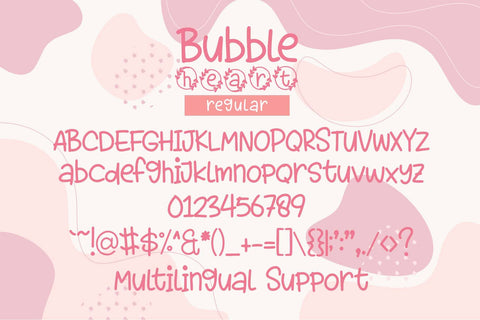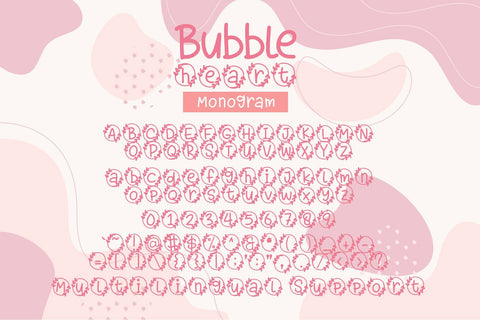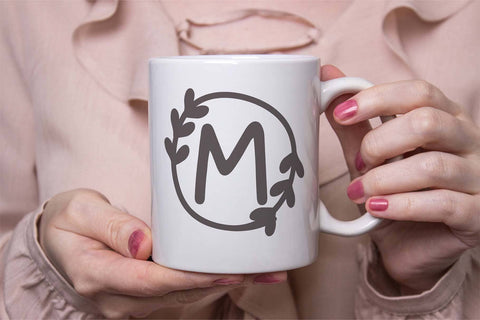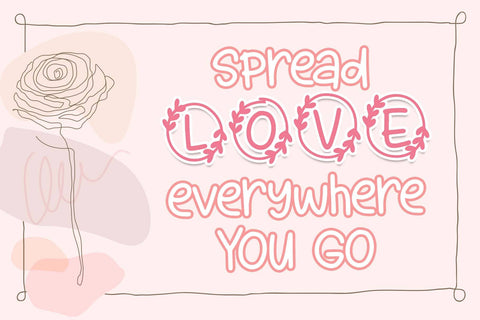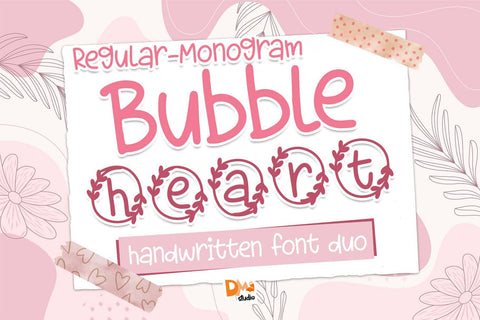
Bubble Heart Font
Elevate your designs with the Bubble Heart Font Duo Monogram. This versatile font duo allows you to effortlessly create beautiful monograms with a charming bubble heart motif. Perfect for personalizing invitations, cards, and more.
Bubble Heart Font Duo Monogram offers a delightful and versatile combination of two fonts designed to create charming monograms with a playful touch. Featuring bubbly letterforms and heart-shaped accents, this font duo is perfect for adding a sweet and whimsical vibe to your designs. Whether you're crafting wedding invitations, branding materials, or personal projects, the Bubble Heart Font Duo Monogram is sure to enchant.
- Bubbly and Playful Design: The Bubble Heart Font Duo Monogram features bubbly letterforms and heart-shaped accents that add a playful and charming touch to your monograms.
- Versatility in Application: Ideal for a wide range of design projects, including wedding invitations, branding materials, stationery, and more, bringing a sweet and whimsical vibe to your creations.
- Uppercase and Lowercase Letters: Both uppercase and lowercase letters included for creative flexibility in crafting monograms.
- Heart-Shaped Accents: Special heart-shaped accents add a romantic and loving element to your monograms, perfect for weddings and romantic occasions.